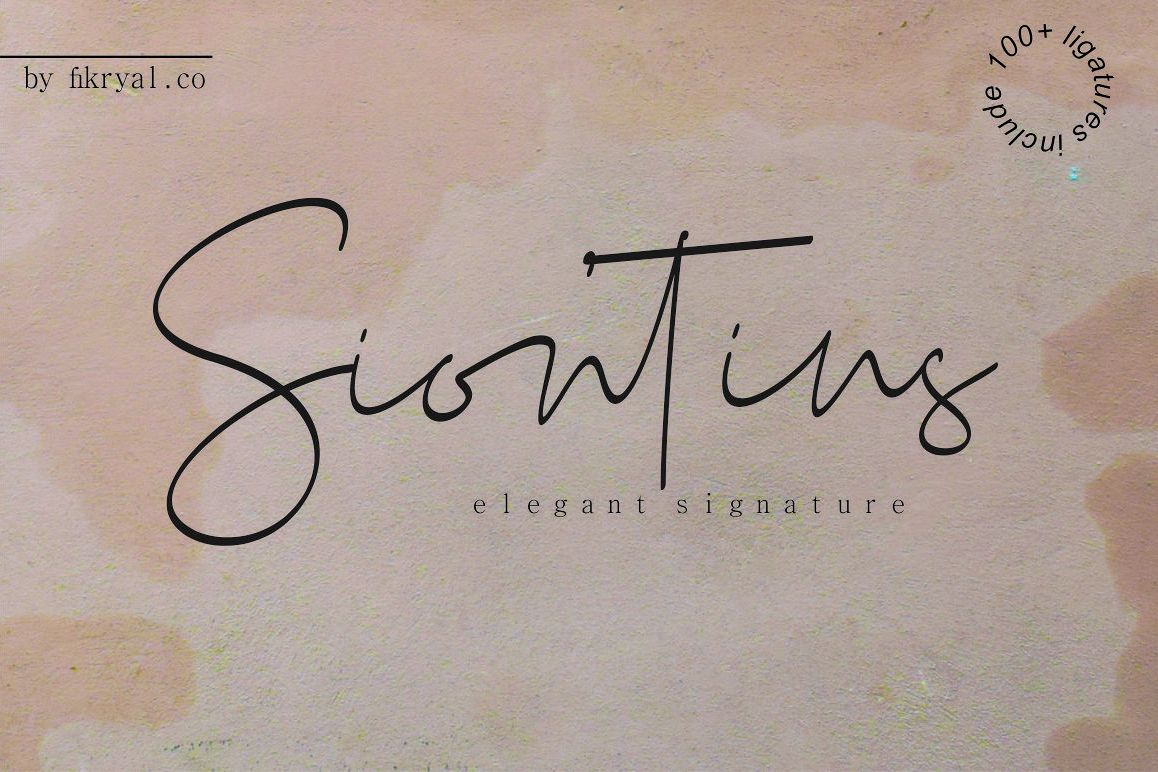
Siontins // elegant signature font
Siontins
introduce my newest font is Siontins elegant signature font , this font is very the best for your logo's ,watermarck, mockup ,signature magazine and more , this font is suitable for your needs and your product!!
with beautiful Uper and lower case than make this font like real
and the 100+ ligatures
and very complete the beauty Multilingual